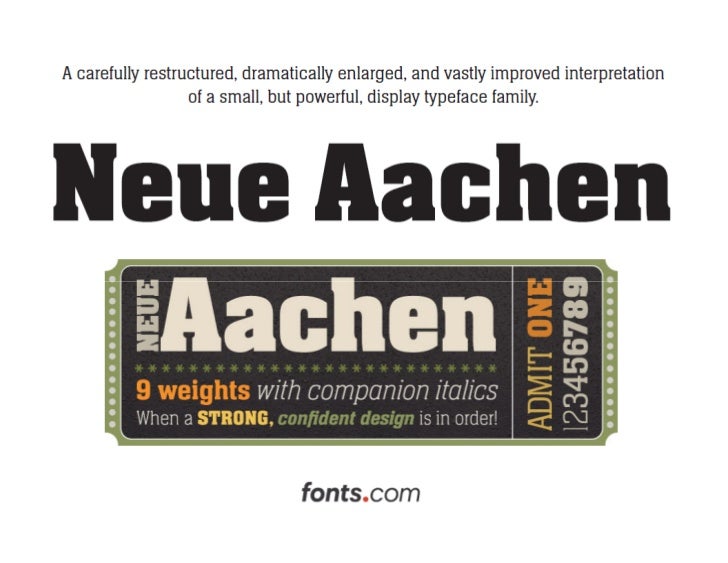
Neue Aachen Typeface by Jim Wasco
Neue Aachen: Bigger, Better – and New...
Neue Aachen: Bigger, Better – and New
The Aachen typeface dates back to the late 1960s when Colin Brignall designed it for Letraset dry transfer lettering sheets. Named after the German city where many believe Gutenberg first used moveable type, Aachen’s bold weight and short, slab serifs made it a natural choice for display typography. A lighter (medium) complement was drawn in the late 1970s but the bold design continued to be the most popular design. Aachen was made available as phototype fonts in the 1970s and digital fonts in the early 1990s – but the family retained its diminutive size.
Realizing that more weights would dramatically increase Aachen’s range of use, Jim Wasco – a senior type designer at Monotype Imaging – put together a proposal that would bring the family into the 21st century.
“I was amazed at how much I saw the old Aachen Bold being used and I thought that a larger family would be welcomed by graphic designers,” says Wasco. “I hope my redesign and enlargement of the original family make it more versatile – and will satisfy the desire designers seem to have for more Aachen.”
The happy result of Wasco’s proposal is Neue Aachen, a family of 9 weights, from ultra light to black, each with an italic complement – for a total of 18 styles. Neue Aachen is also available as a suite of OpenType Pro fonts, allowing for the automatic insertion of ligatures, fractions – and a special alternate g that Wasco felt added a distinctive quality to the design. Pro fonts also include an extended character set supporting most Central European and many Eastern European languages.
When asked about how his design improved the versatility of Neue Aachen, Wasco replied, “The family can now be put to work at any size from small text to large display applications. The bold weights can be excellent choices for headlines, banners and ads. The book and regular were drawn for text setting, and the extra light and ultra black weights add extra oomph – or a touch of finesse – to large display copy.”
Wasco’s revitalization of Neue Aachen takes a 40-year-old design – with a heritage that dates back to the first fonts of movable type – fully into the 21st century.